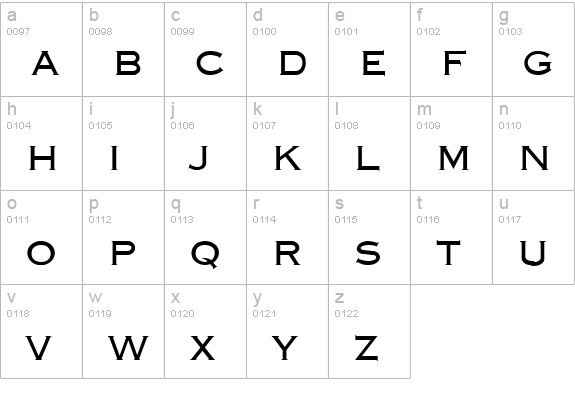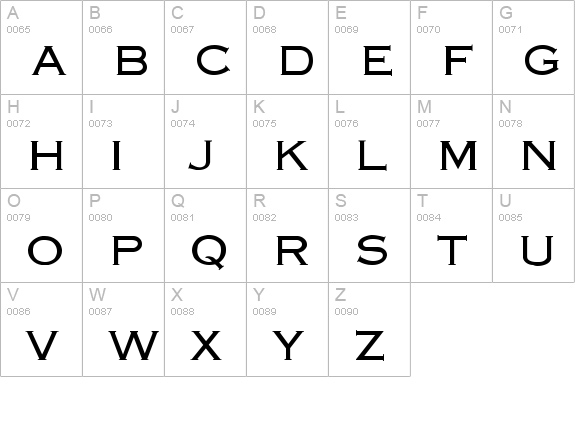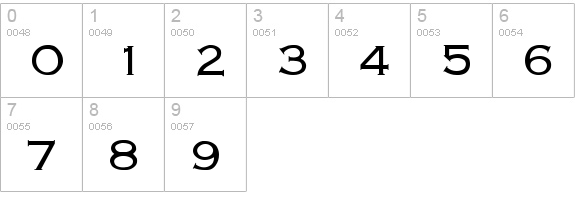
Labrador Font Details
Labrador font is a modern and versatile typeface that exudes elegance and sophistication. With its clean lines and classic style, Labrador is perfect for a wide range of design projects, from branding to editorial design. This font features a sleek and timeless aesthetic that is sure to make your designs stand out. What's even better is that Labrador font is completely free to download at FontsMarket.com. This means you can access this high-quality font without any cost, making it an excellent choice for designers looking to enhance their projects without breaking the bank. Don't miss out on this opportunity to elevate your designs with Labrador font – download it today and see the difference it can make!